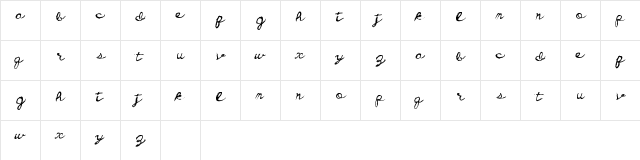
DirtyCursive Regular
Foundry: Xerographer Fonts
Designer: Max Infeld
Design Context for DirtyCursive
DirtyCursive flows with the natural rhythm of handwritten lettering, making it ideal for designs that call for warmth and personal expression.
Font Pairing: Combine DirtyCursive with a simple geometric sans for maximum contrast - the tension between flowing curves and clean structure is a classic typographic pairing.
Pro Tip: Use DirtyCursive for short runs of text - names, titles, or taglines. Extended body copy in script faces tires the eye quickly.